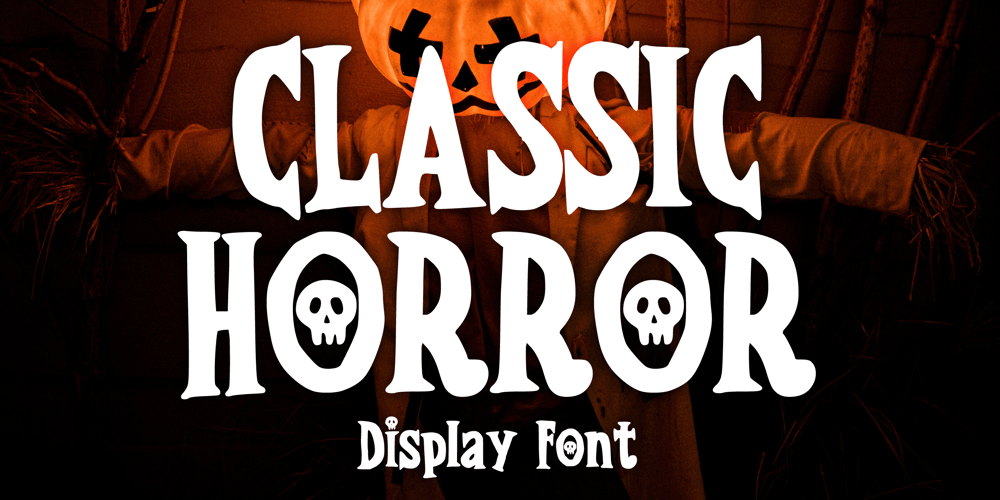
Classic Horror
Classic Horror font
Classic Horror Font Family was designed by Gabriel Valentinus and published by Mvmet. Classic Horror contains 1 styles and family package options. Classic Horror is a fun and comical horror display font inspired by vintage spooky cartoon. Not only can be used for Halloween theme needs, you can use it too for other things for daily needs. Use it on t-shirts and clothing, book designs, greeting cards, stickers, posters, banners, or anything that needs a fun touch. Try it to create fabulous designs and feel the fun and cool vibes with it!